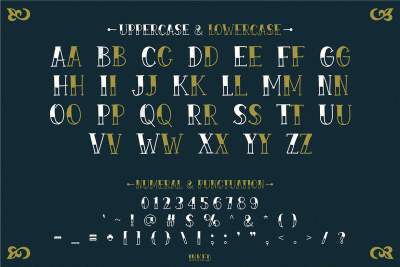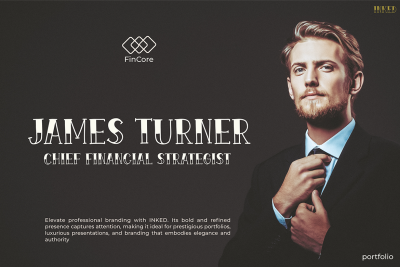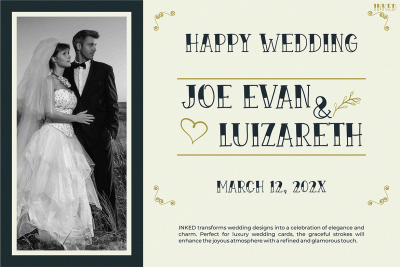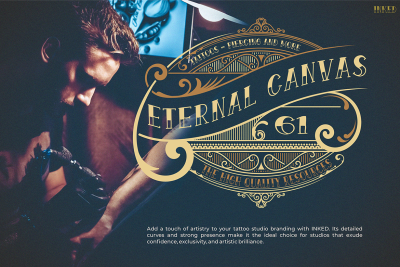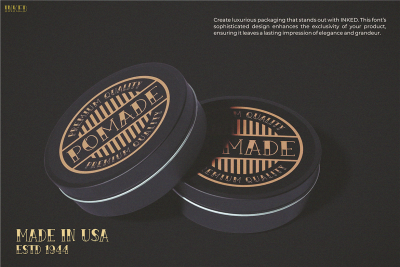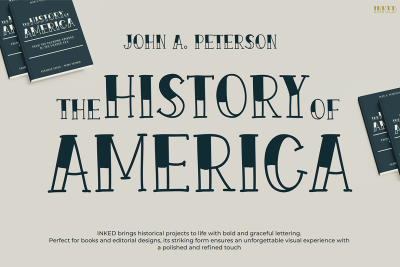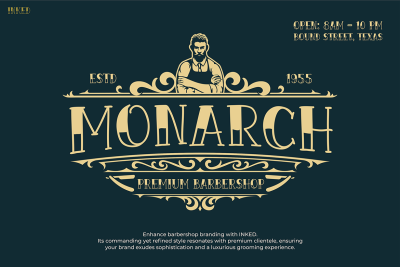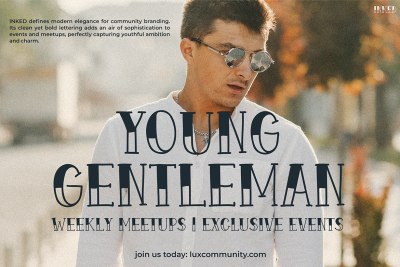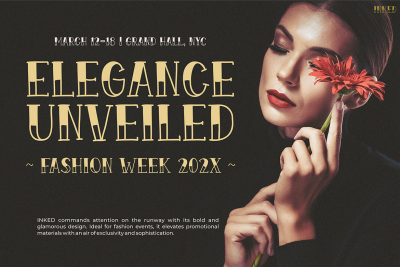
Tattoo Font INKED is a stylish and elegant typeface inspired by classic tattoo designs. With bold strokes, it captures the timeless beauty of inked expressions. Each letter blends vintage aesthetics with modern sophistication, while the clean lines and subtle details make it versatile for various design needs, from branding to artistic projects. INKED stands out, yet maintains balance and readability. Therefore, whether you’re evoking nostalgia or making a bold statement, this font offers the perfect blend of tradition and innovation.
The font features ornamental elements that pay homage to tattoo artistry, giving it an authentic, handcrafted feel. Additionally, its contrasting strokes create visual interest, and the structured letterforms ensure a polished appearance. As a result, INKED celebrates the rich history and culture of tattooing, making it ideal for designs with personality and depth.
Who Should Use Tattoo Font INKED?
Tattoo Font INKED is ideal for individuals and businesses seeking an artistic touch in their designs. Here are the key audiences who will benefit most from using this font:
- Tattoo Artists and Studios: Naturally, INKED suits tattoo professionals looking for eye-catching logos, signage, and promotional materials. Its tattoo-inspired design resonates with clients, reflecting their artistry.
- Creative Branding Projects: For brands in fashion, lifestyle, or alternative industries, INKED adds bold, unique character to logos, packaging, and marketing campaigns. Its vintage-meets-modern look appeals to those seeking authenticity and individuality.
- Event Organizers and Designers: Whether for tattoo conventions, art shows, or themed events, INKED enhances posters, invitations, and digital assets. Consequently, it creates a cohesive, memorable visual identity.
- Graphic Designers: Designers looking for creativity and edge will find INKED invaluable. Its versatility makes it perfect for album covers, editorial layouts, and more.
- Artists and Illustrators: INKED complements hand-drawn illustrations and enhances mixed-media artworks. Moreover, itโs perfect for personal projects or collaborations that require character.
- DIY Enthusiasts: For hobbyists creating custom stationery, home decor, or crafts, INKED offers a professional yet accessible way to incorporate tattoo-inspired typography into projects.
In conclusion, Tattoo Font INKED is a versatile typeface that suits a wide range of audiences. Its artistic roots and thoughtful design make it the ideal choice for elevating creative work with a touch of tattoo-inspired elegance.